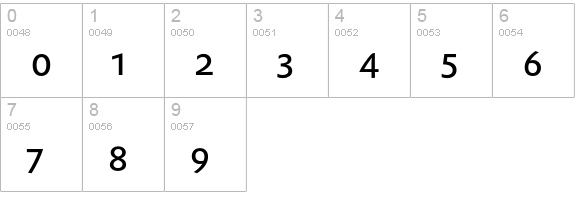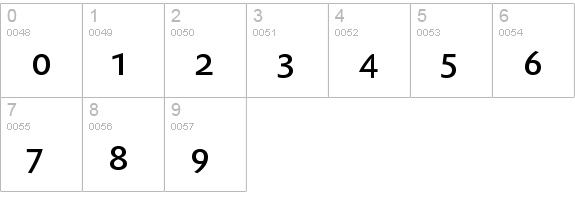
DTLProkyonTCaps Font Details
The DTLProkyonTCaps font is a modern and stylish typeface that exudes sophistication and elegance. Featuring clean lines and a sleek design, this font is perfect for adding a touch of class to any project. The uppercase letters are bold and striking, making a statement wherever they are used. What sets DTLProkyonTCaps apart is not just its visual appeal, but also its versatility. Whether you're designing a logo, creating marketing materials, or working on a branding project, this font will elevate your work to the next level. Best of all, DTLProkyonTCaps is available for free download at FontsMarket.com. This means you can easily access this high-quality font without any cost, making it a valuable addition to your design toolkit. Don't miss out on the opportunity to enhance your projects with the elegance and sophistication of DTLProkyonTCaps font. Download it today and elevate your designs to new heights.